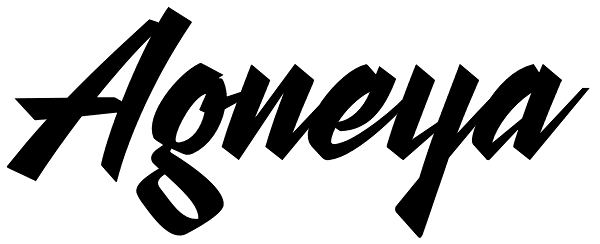
Agneya
Agneya is calligraphy script font, inspired by urban street art. Equipped with opentype features. Stylistic alternates, swash and more 600 glyph. It is make easily to create such as Signpainter logo and various purposes. Just open the Opentype...